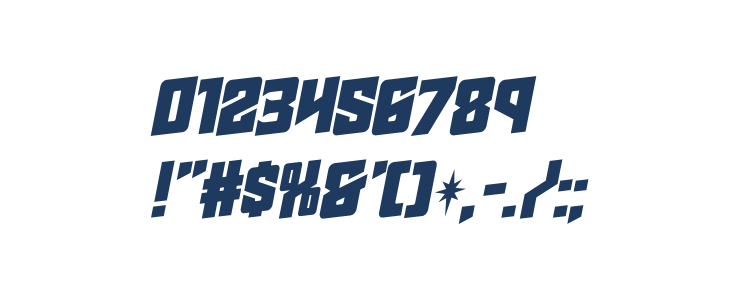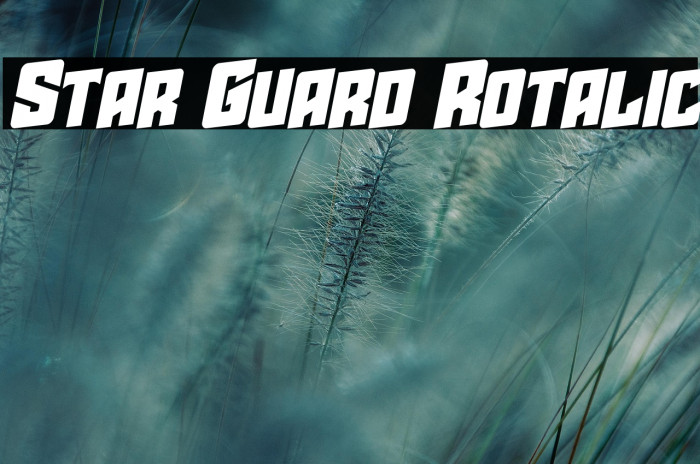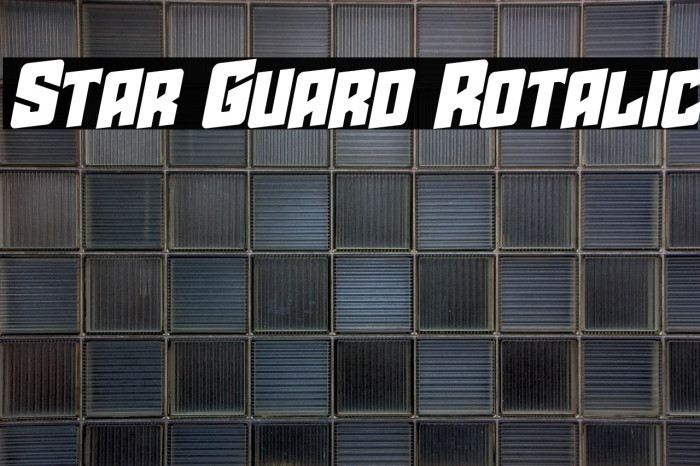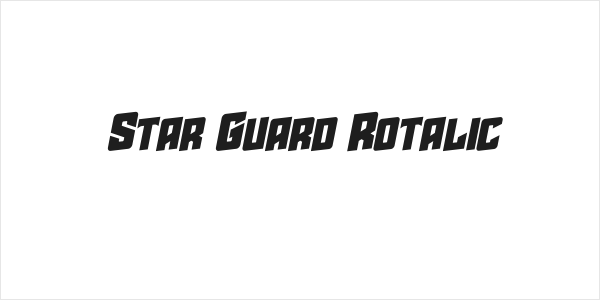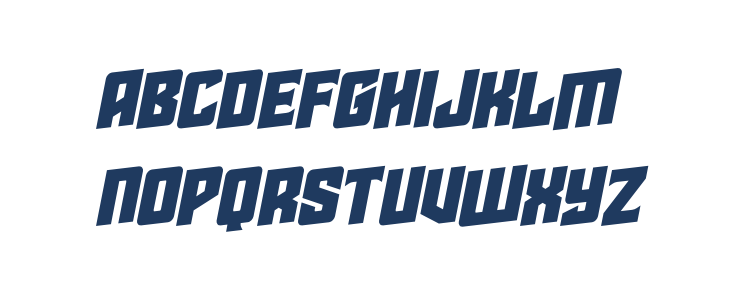
Star Guard Rotalic Font
Star Guard Rotalic Description
This font features a bold and dynamic style with a strong, angular design. The characters are slanted, giving a sense of motion and energy, which is enhanced by the thick strokes and sharp edges. The uppercase and lowercase letters maintain a consistent slant, while the numbers and special characters follow the same design principles, ensuring uniformity across all glyphs. The font's aggressive and futuristic appearance makes it stand out, making it suitable for attention-grabbing designs.
| Proposed Projects | Ideal for sports branding, action movie posters, video game titles, and dynamic advertising campaigns. |